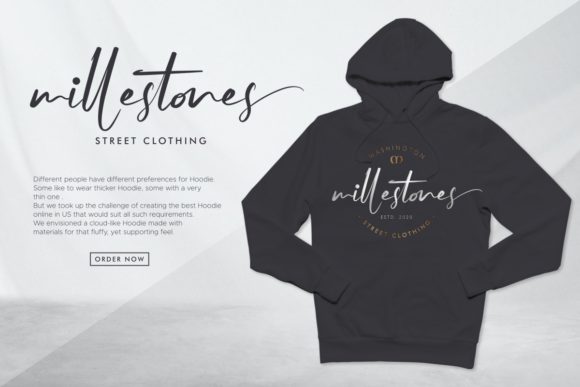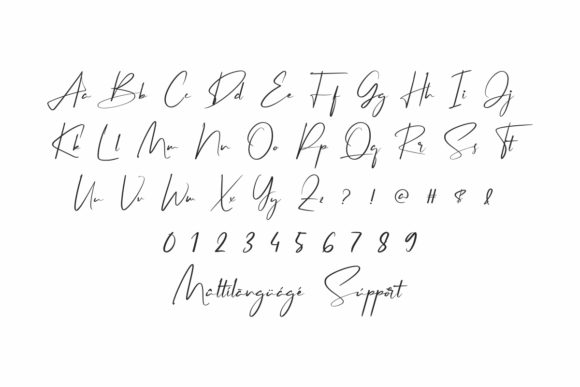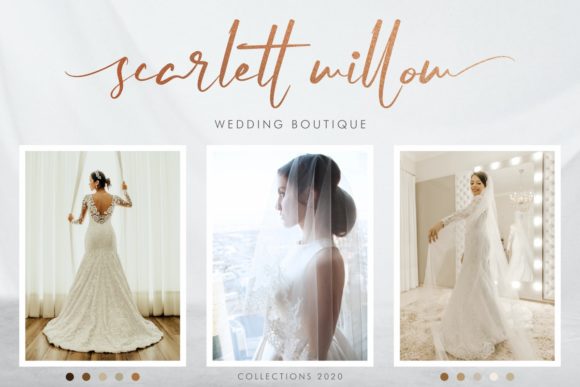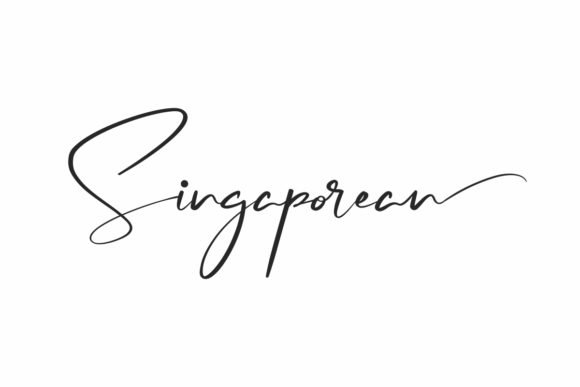
Introduction to Singaporean Font
Singaporean is an incredibly distinct, delicate and timeless handwritten font.
It looks stunning on wedding invitations, thank you cards, quotes, greeting cards, logos, business cards and every other design which needs a handwritten touch This font is PUA encoded which means you can access all of the glyphs and swashes with ease.